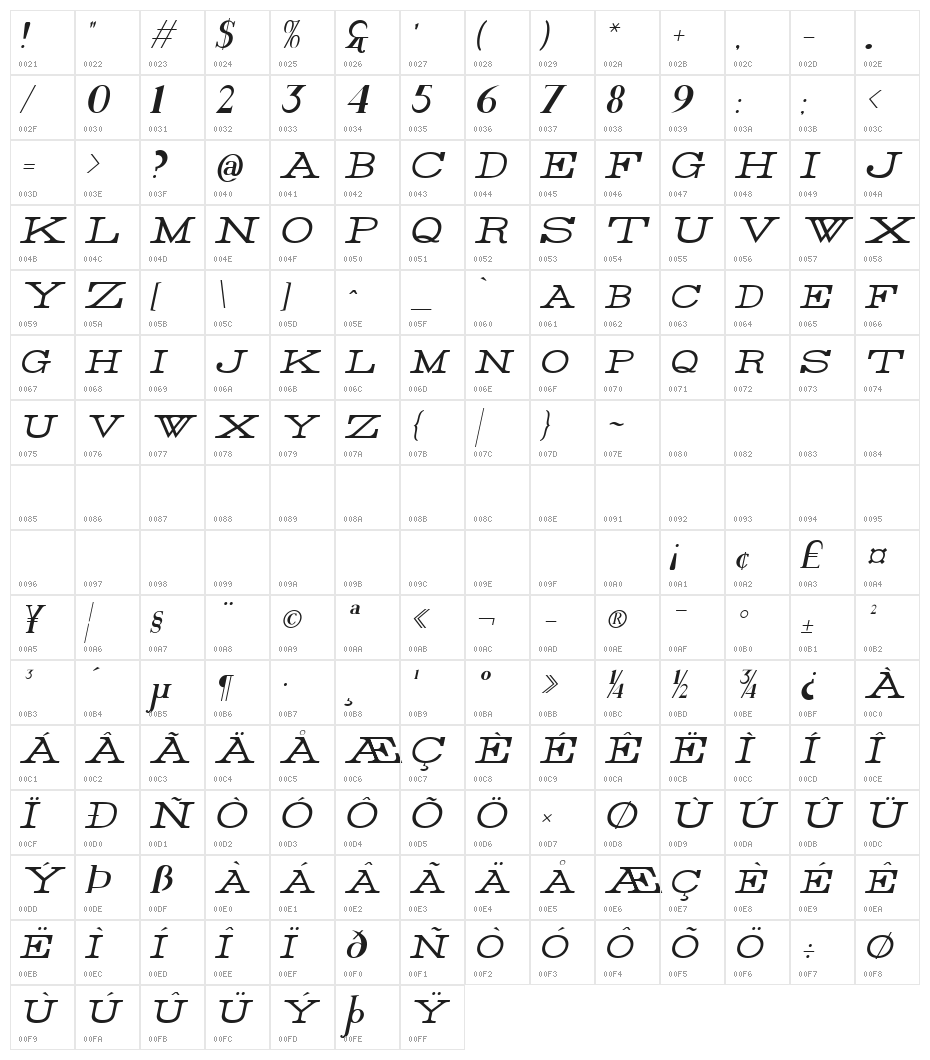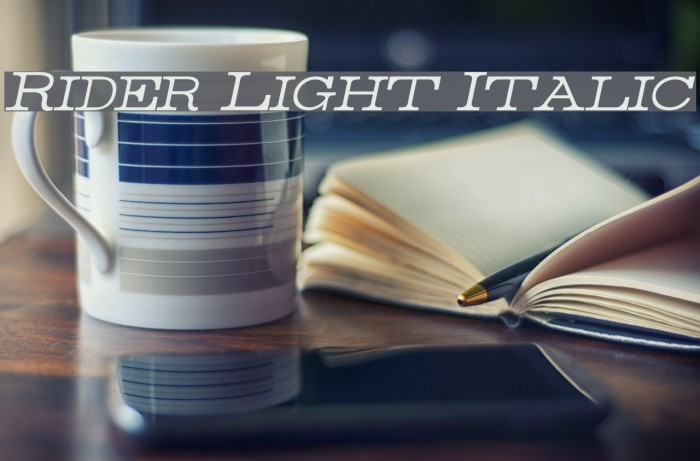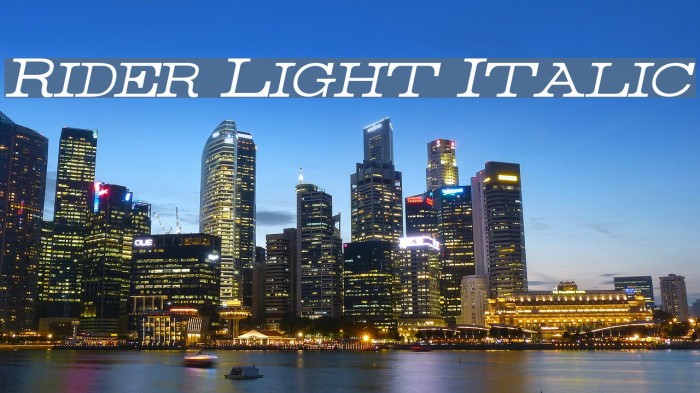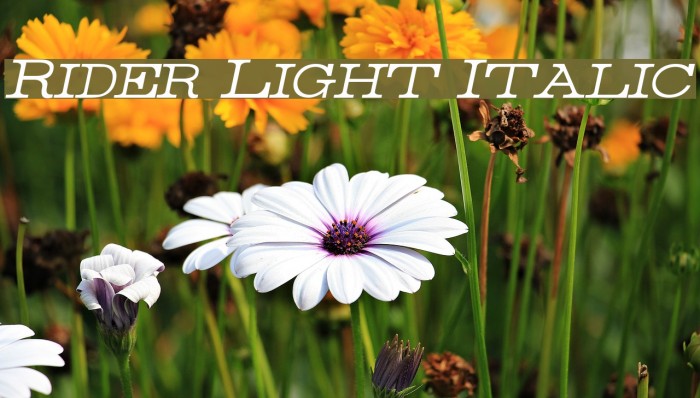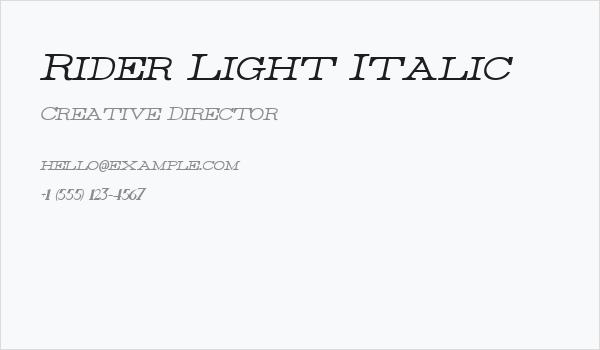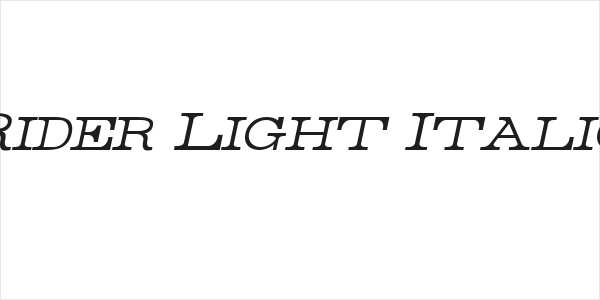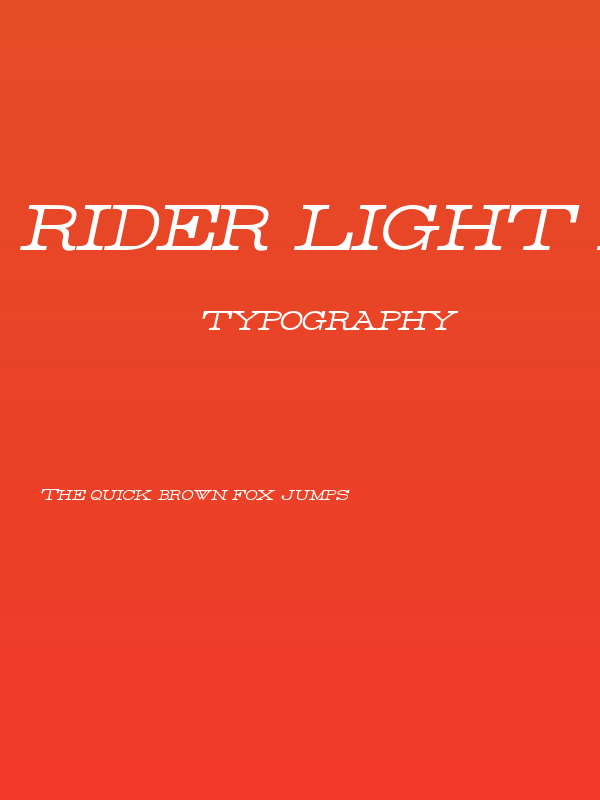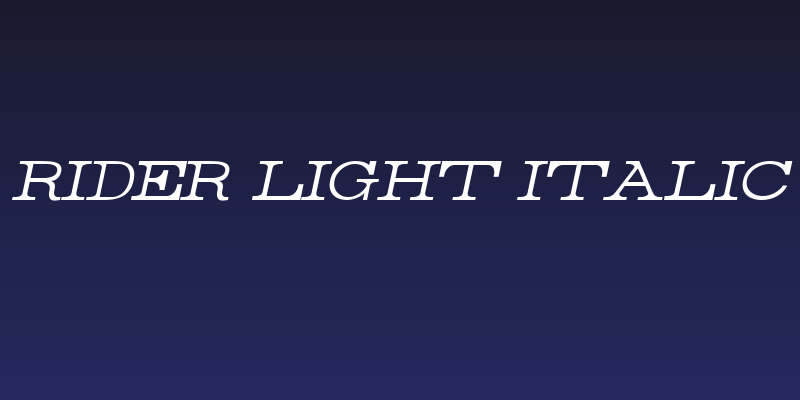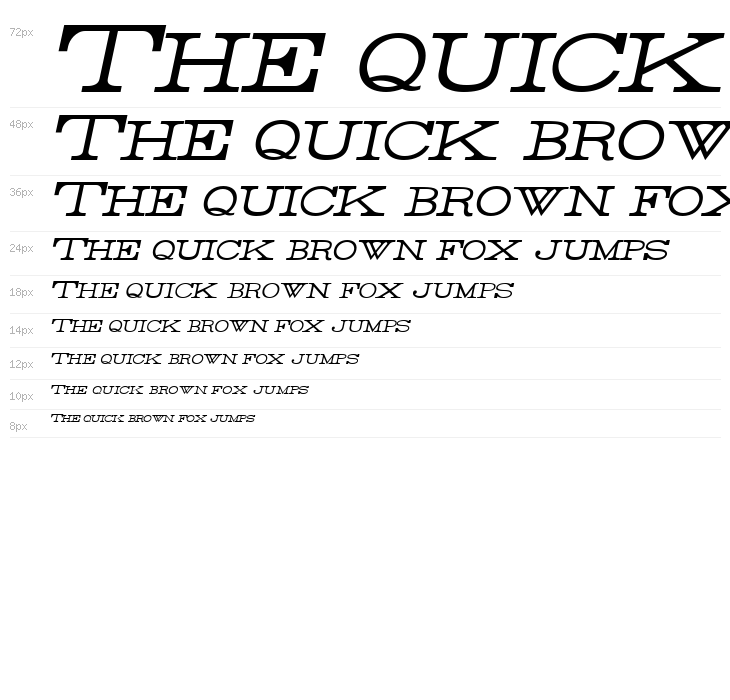
Rider Light Italic Font
Rider Light Italic Description
This font exhibits a sleek and elegant design with a distinct italic slant, giving it a dynamic and sophisticated appearance. The characters are crafted with a high contrast between thick and thin strokes, enhancing its readability and visual appeal. The serif elements add a touch of classic style, while the overall italicized form provides a sense of movement and fluidity. The numerals and special characters maintain the same stylistic features, ensuring consistency across all elements. This font is suitable for projects that require a refined and professional look.
| Use Case | Headlines, Logos, Editorial Design |
| Proposed Projects | Ideal for use in editorial design, luxury branding, formal invitations, and elegant website headers. |